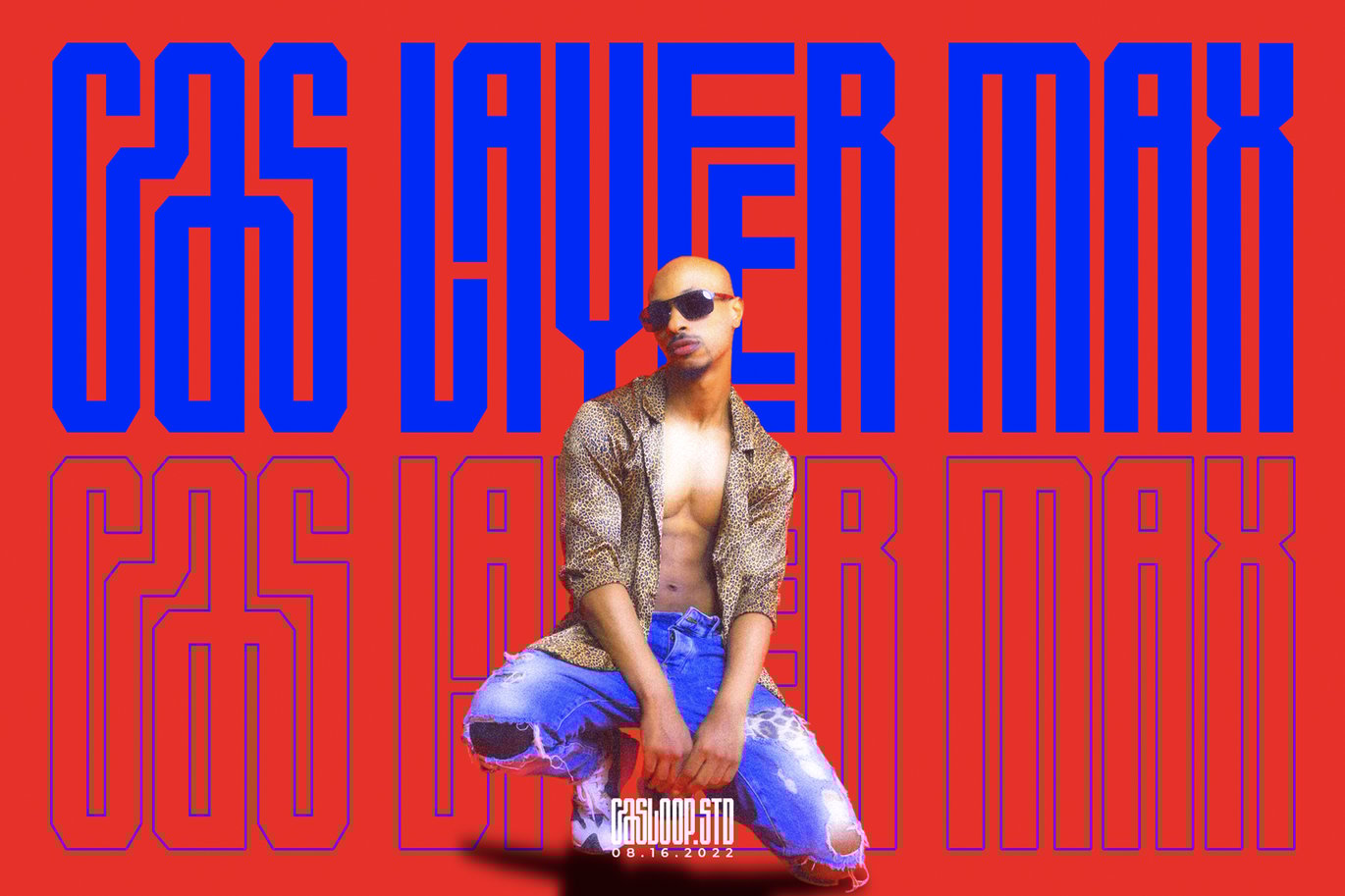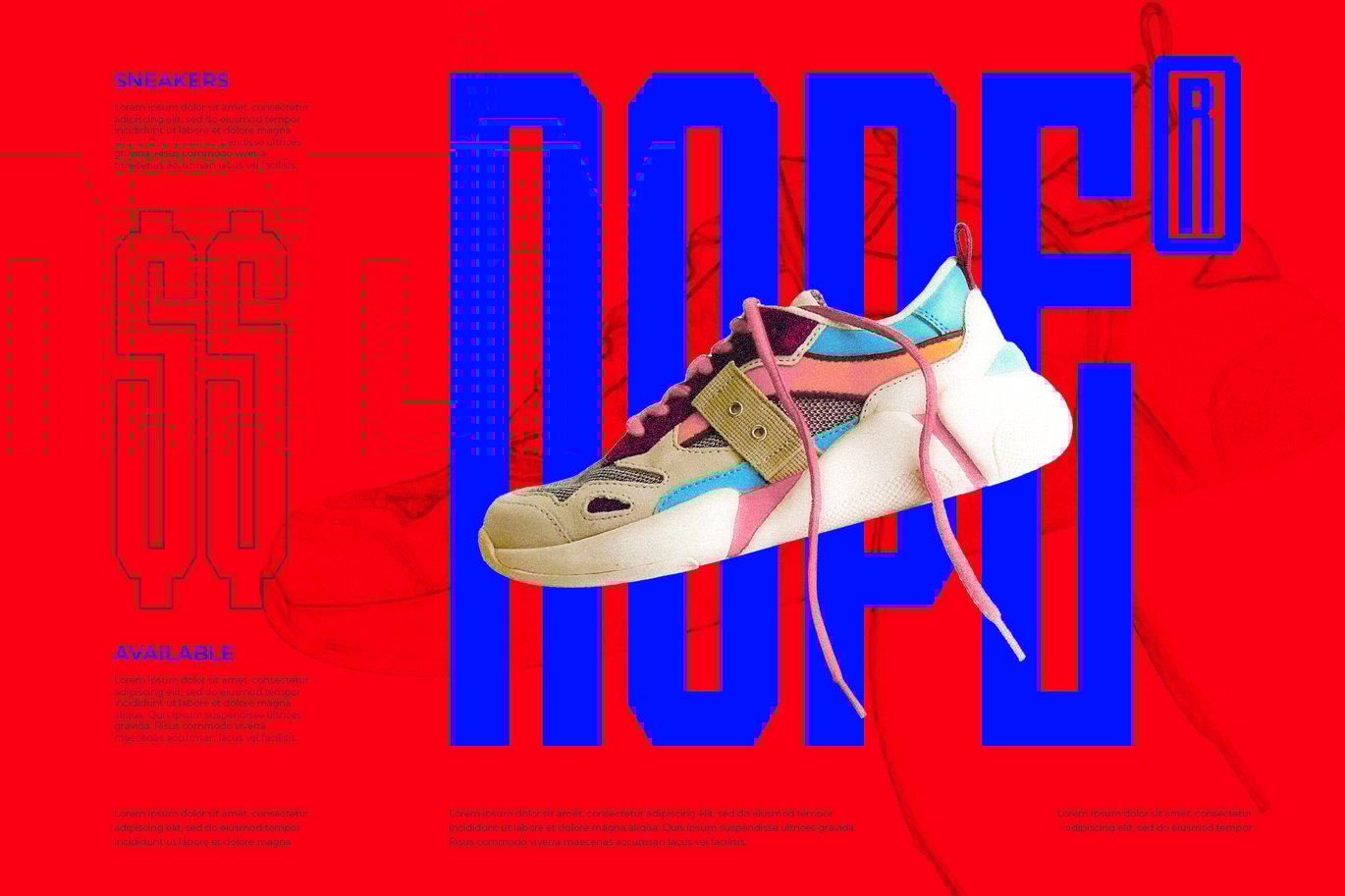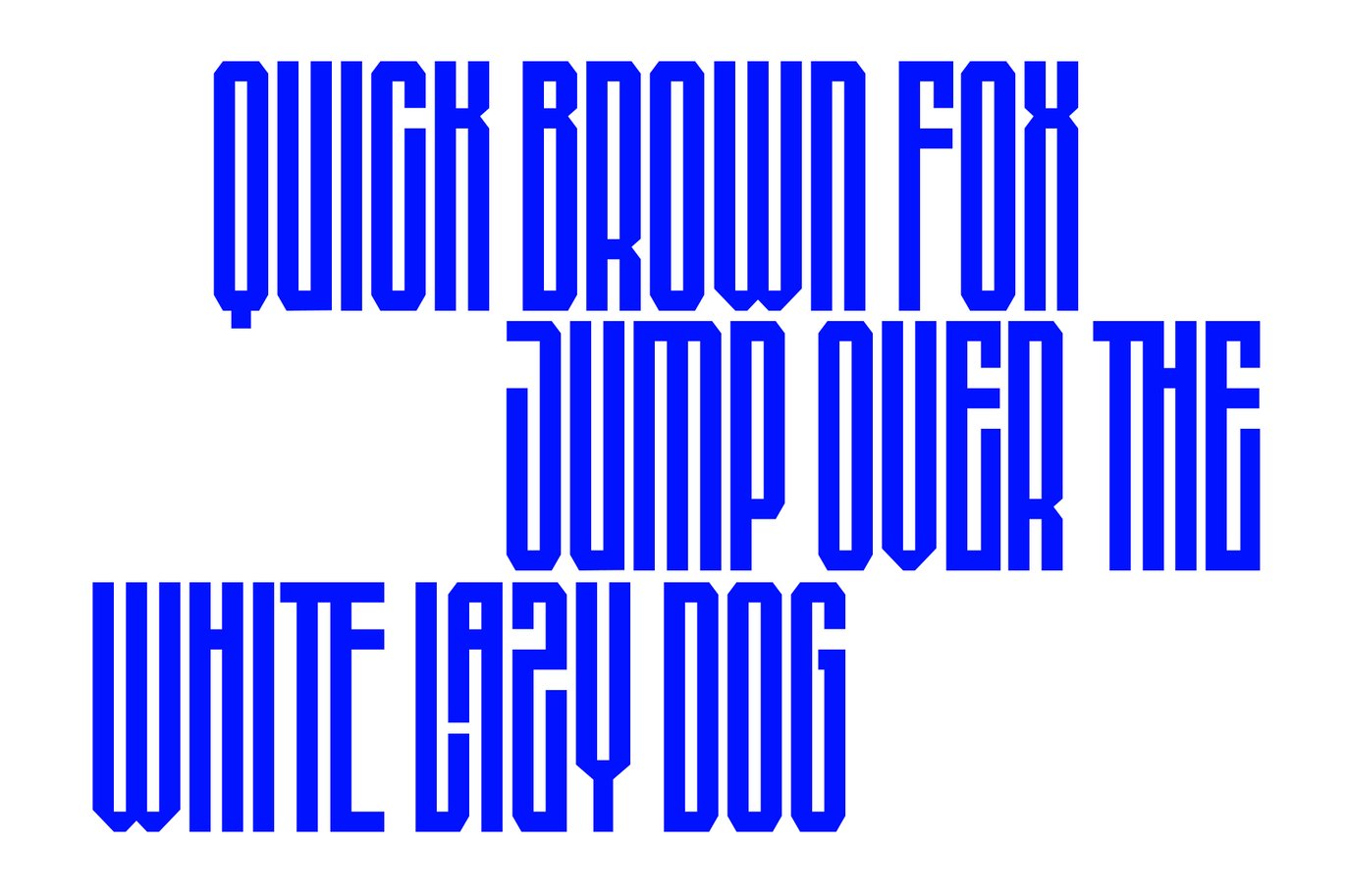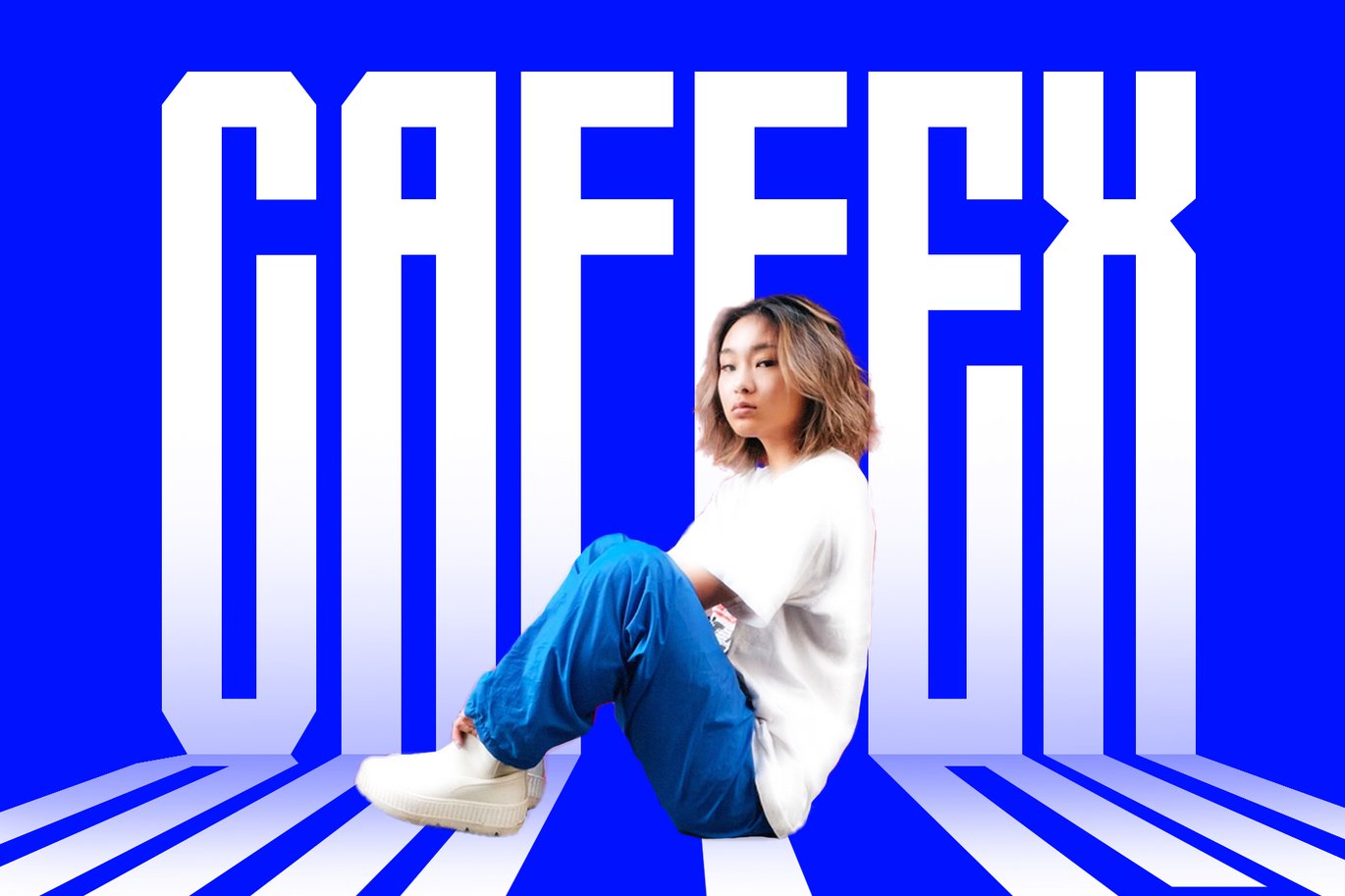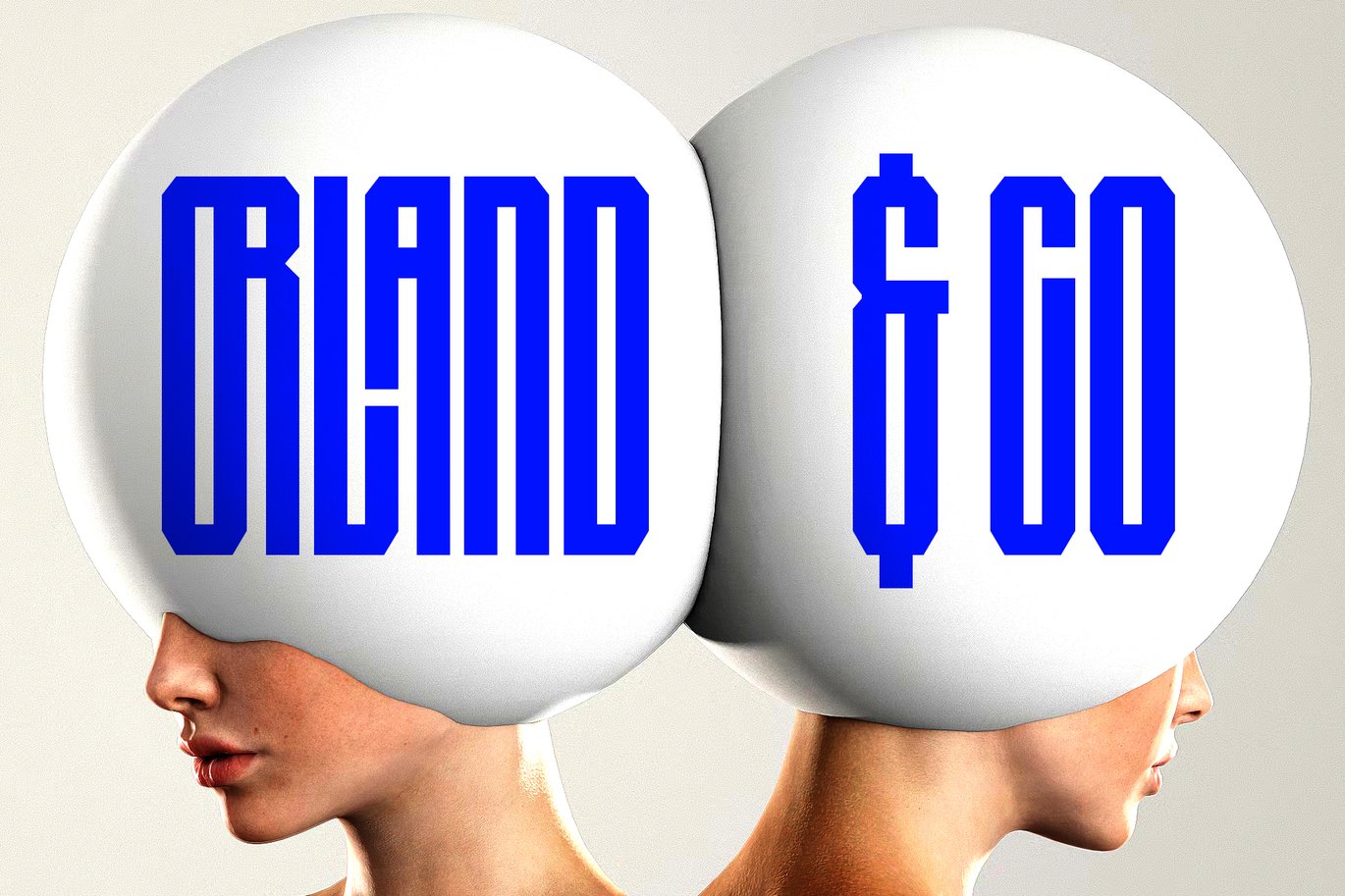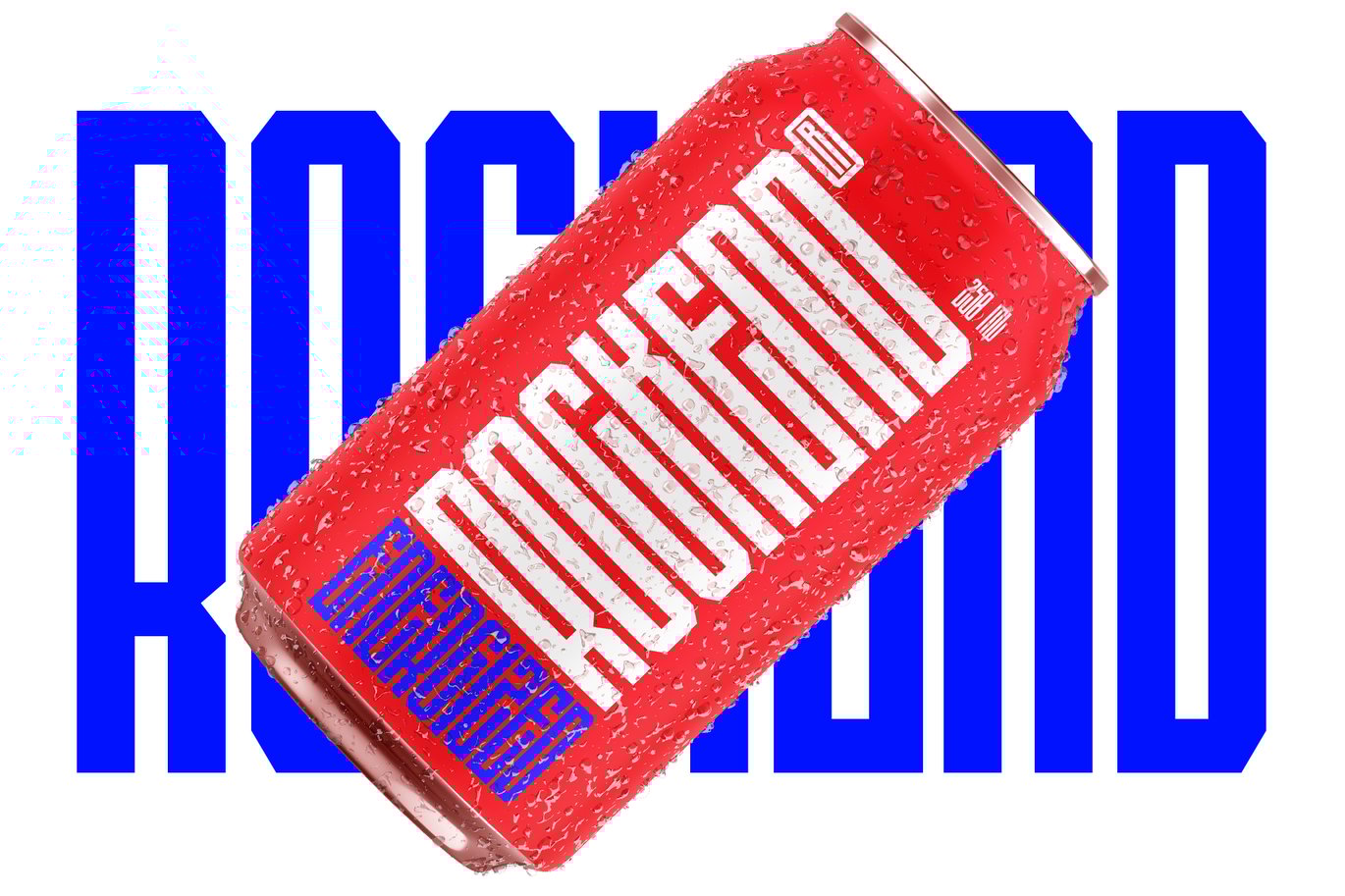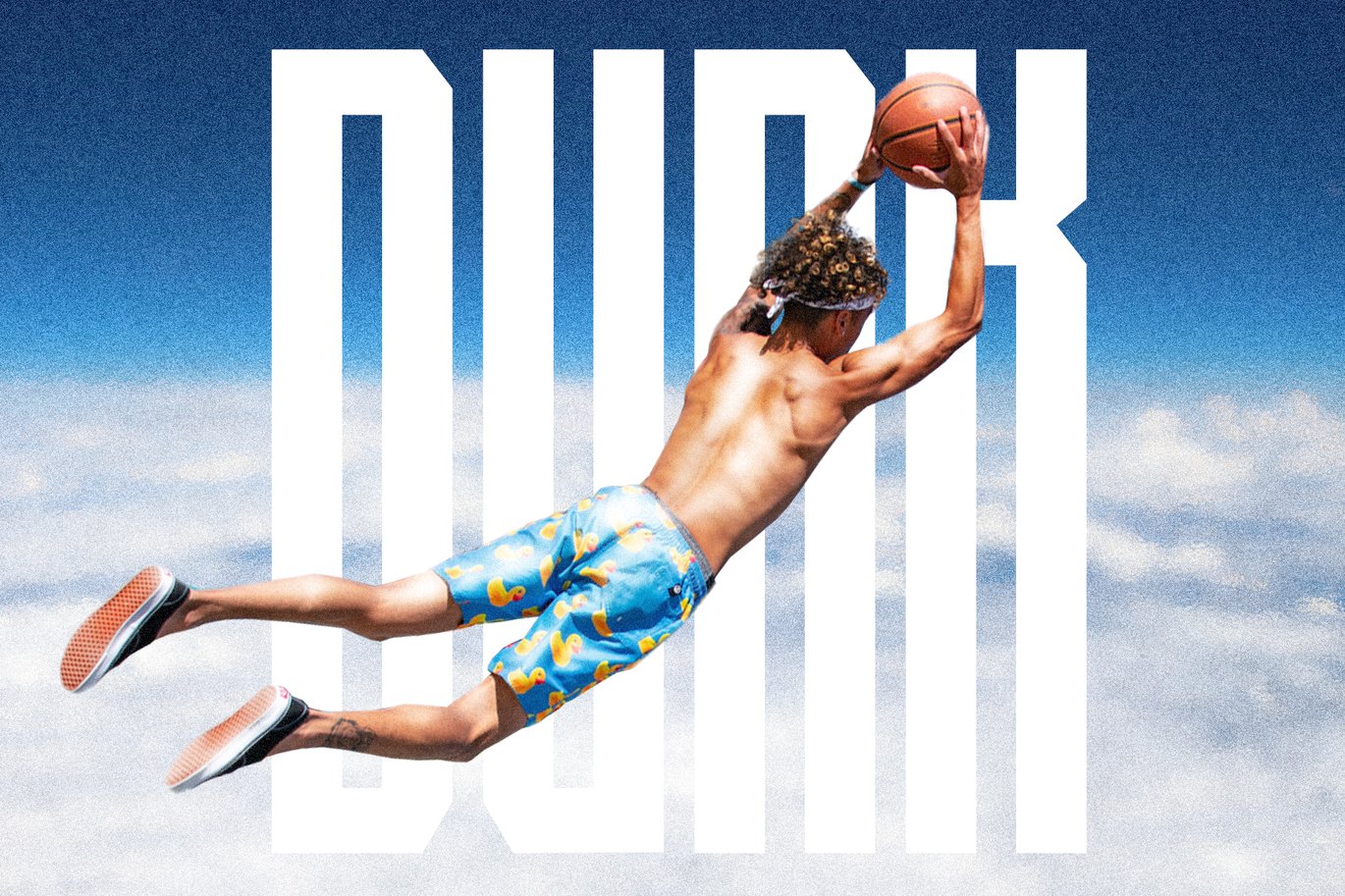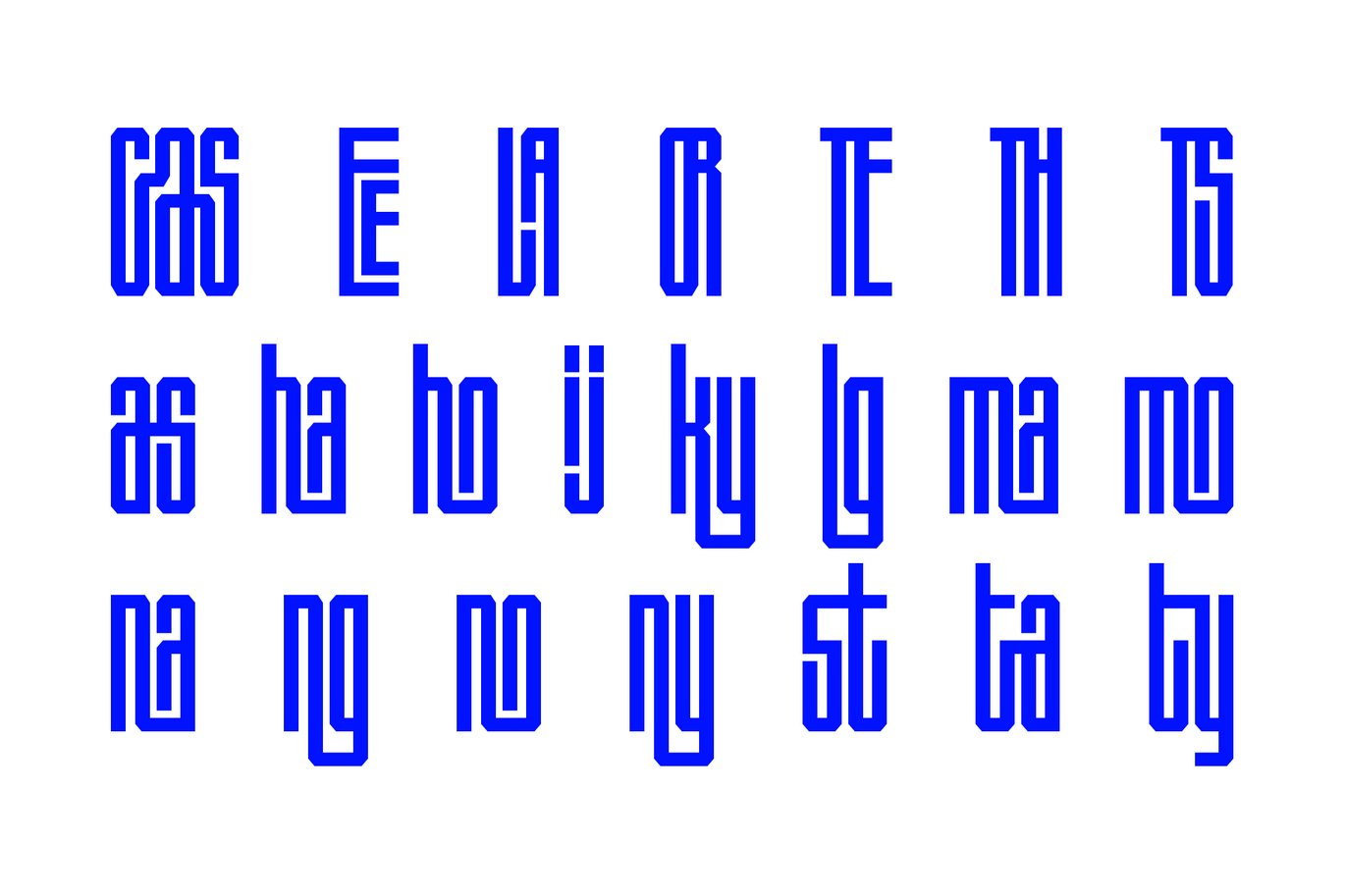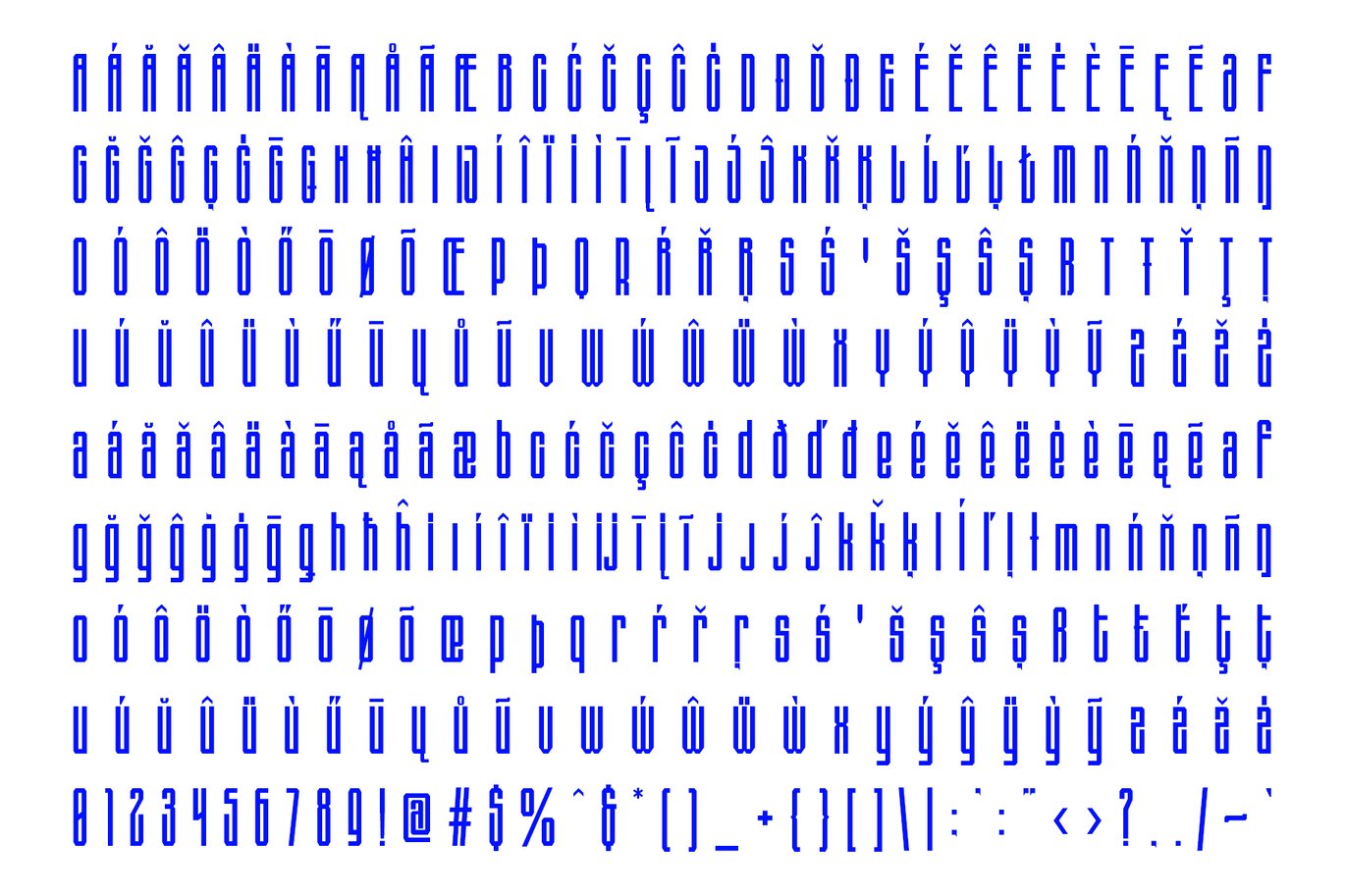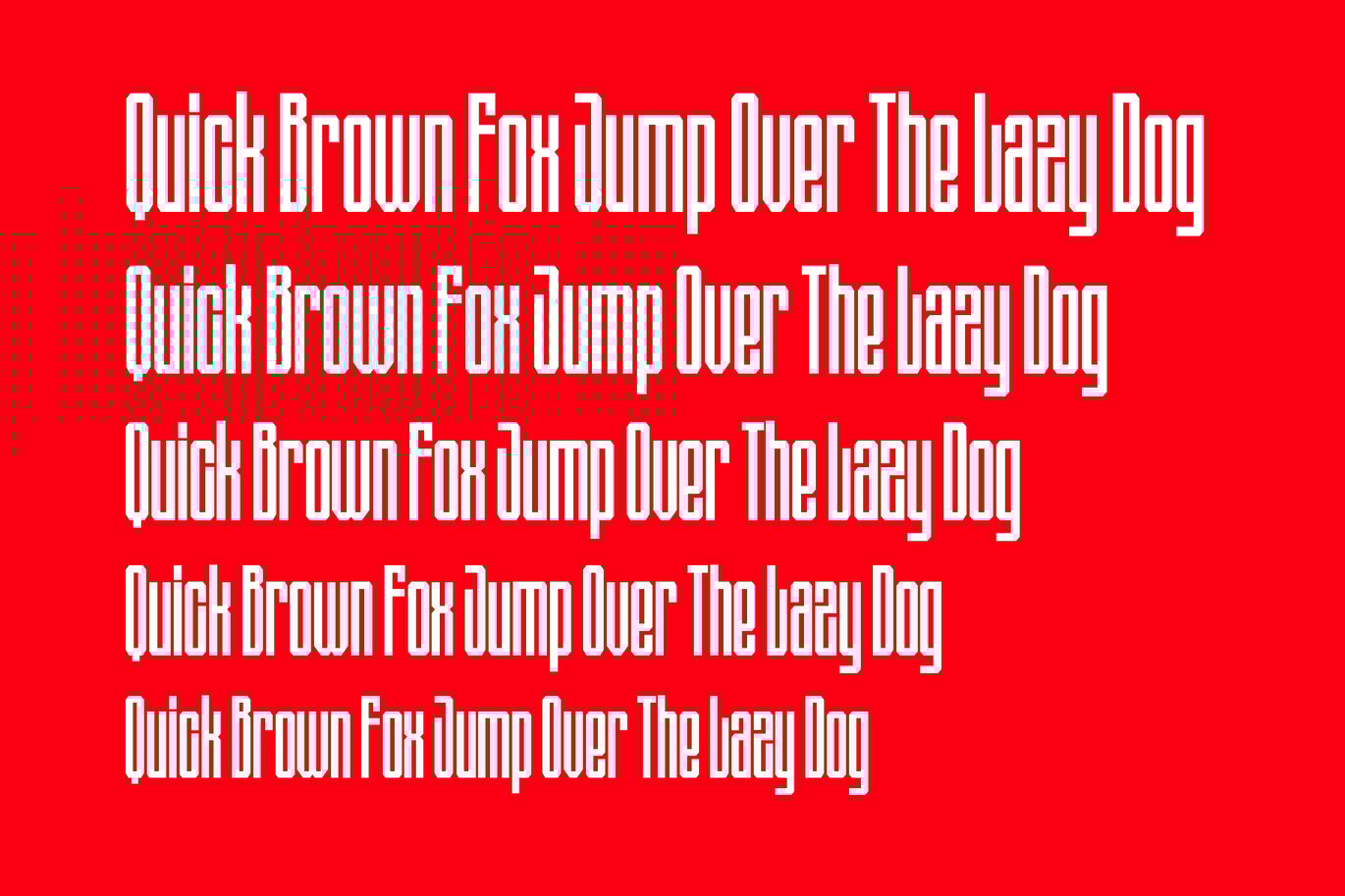
Cas Layeer Max – Dynamic Condensed Sans Serif Font
Introducing Cas Layeer Max: Pioneering Brutalist Futuristic Dynamics for Sports and 3D Adventures! Cas Layeer Max, a condensed sans-serif masterpiece, pushes the limits with dynamic, layered design influenced by brutalism, sports, 3D adventures, and techno aesthetics. Crafted for the font future, it features multi-layered ligatures and a 45-degree angle, embodying the spirit of free street culture with a touch of Y2K flair.
Experience the impressive impact of Cas Layeer Max across websites, packaging, logos, branding, album covers, 3D projects, and gen z posters. The font’s unique combination of clear ligatures, uppercase dominance, and a slender yet massive form, inspired by 1950s style and bison strength, guarantees satisfaction and modernizes contemporary design.
Cas Layeer Max stuns with gorgeous, eccentric twists, blending vibrant, youthful vibes with hi-tech athleticism. Infused with a touch of modern retro, its sporty, futuristic, and clean style makes it perfect for conveying an original and unique mood in gym, gaming, and travel designs. The font’s massive shape and maximized space, combined with bold sans-serif tech, create an ideal choice for modern, dynamic designs.
- Uppercase & lowercase
- Numbers and punctuation
- Other important features such as a suitable and functional style set are highlighted in this typeface.
Cas Layeer Max is not just a font; it’s an expression of bold originality for a modern, cinematic world. Download now for a condensed sans-serif font experience, blending race fonts, techno elegance, brutalism, and the golden essence of modernity. Elevate your designs with the high impact of Cas Layeer Max – where the future meets dynamic typography inspired by sports, gaming, and the thrilling adventures of today.